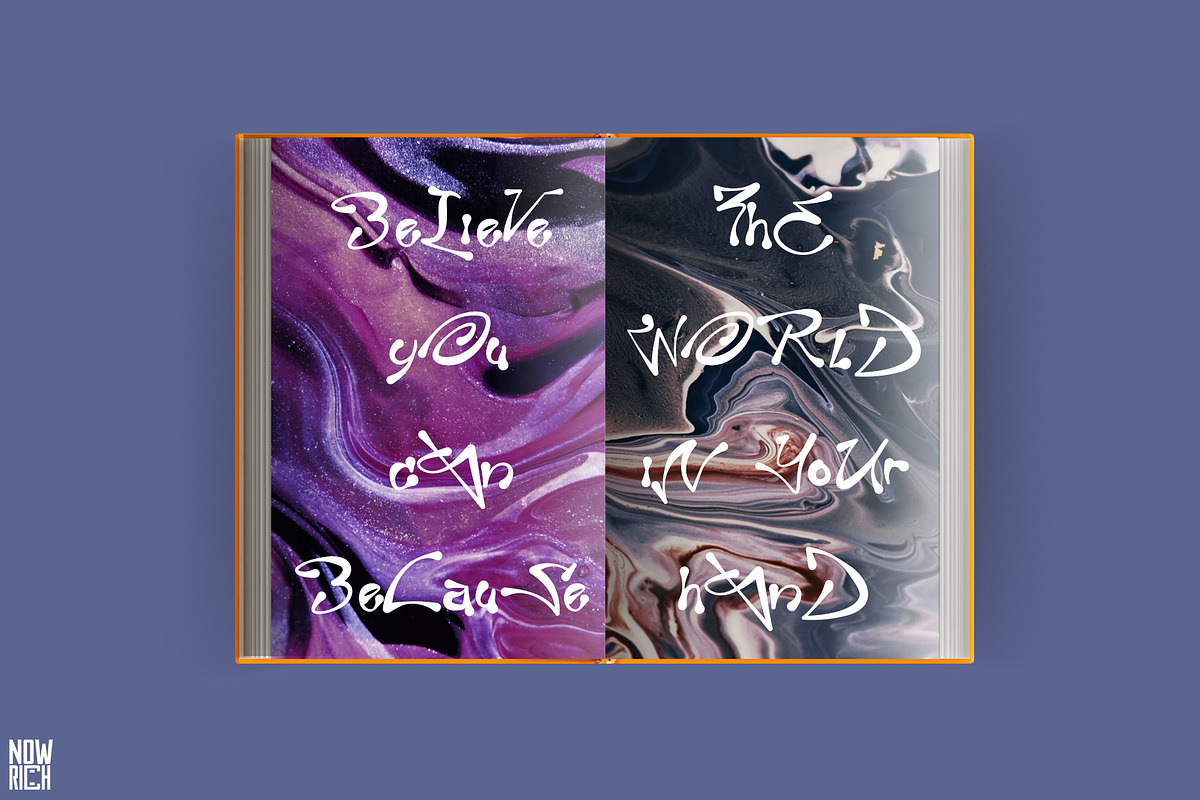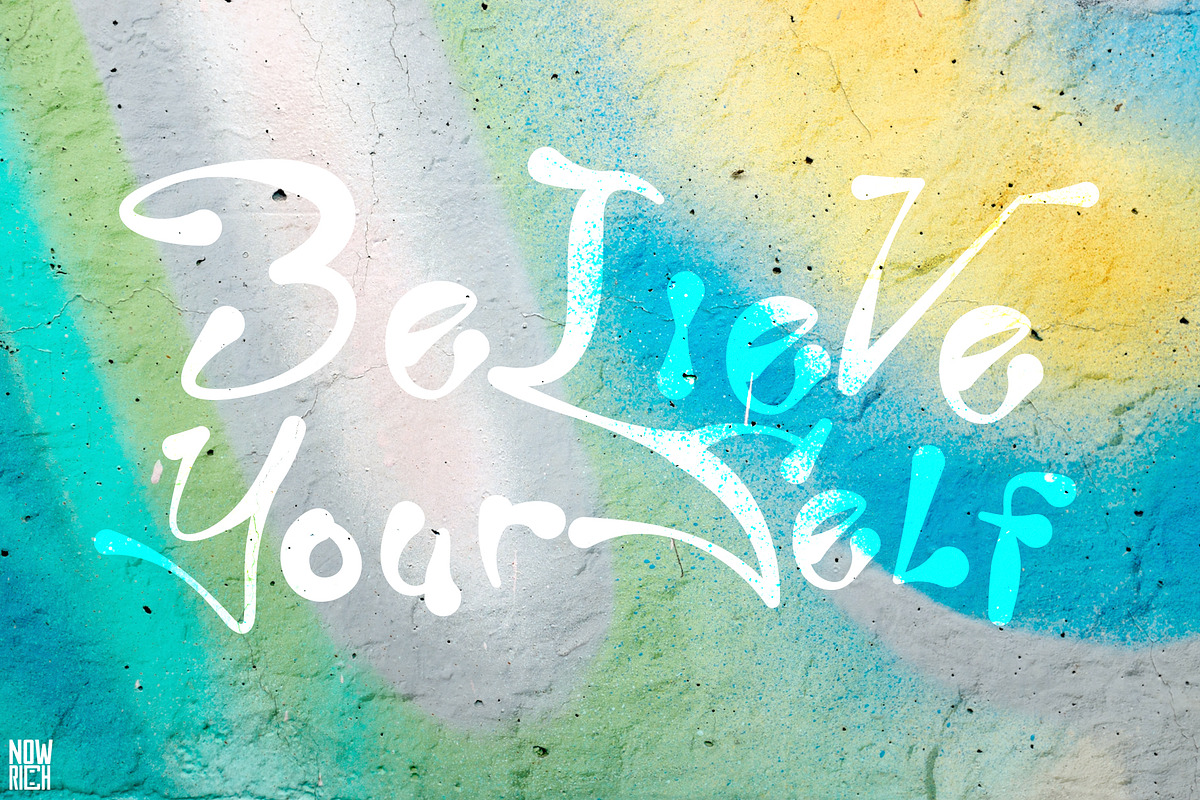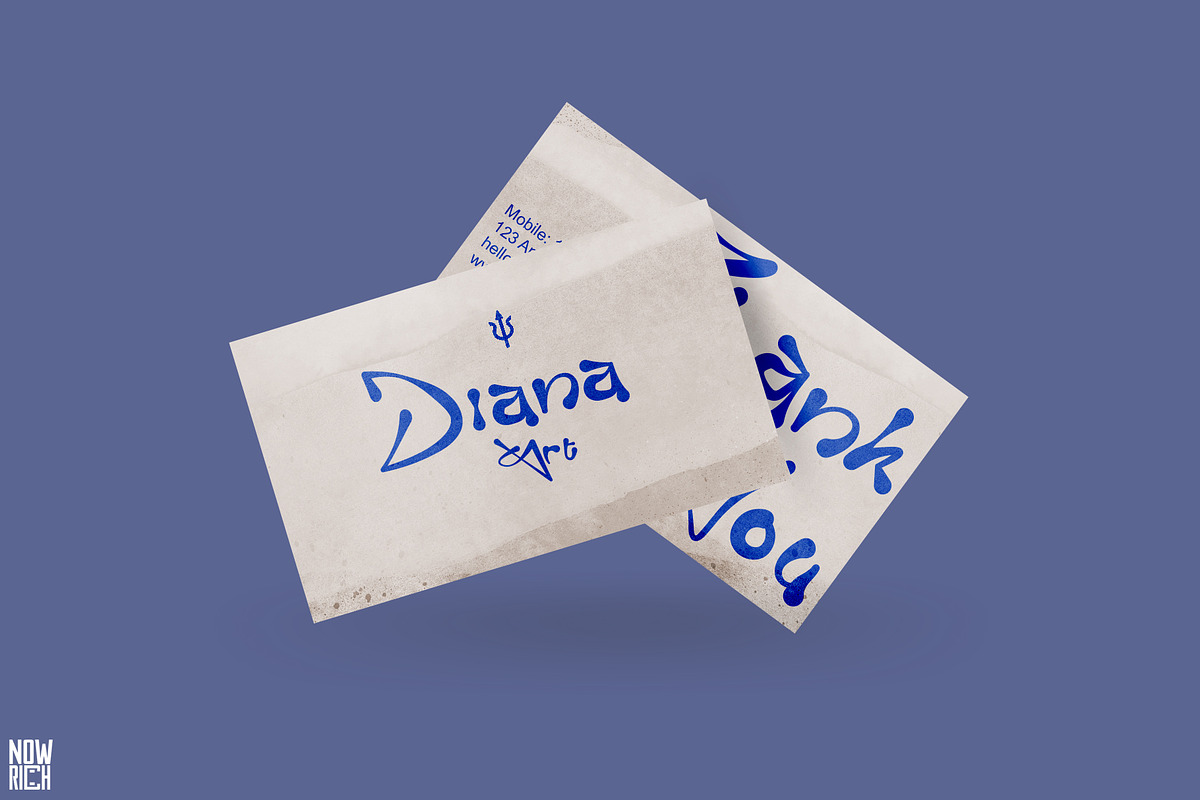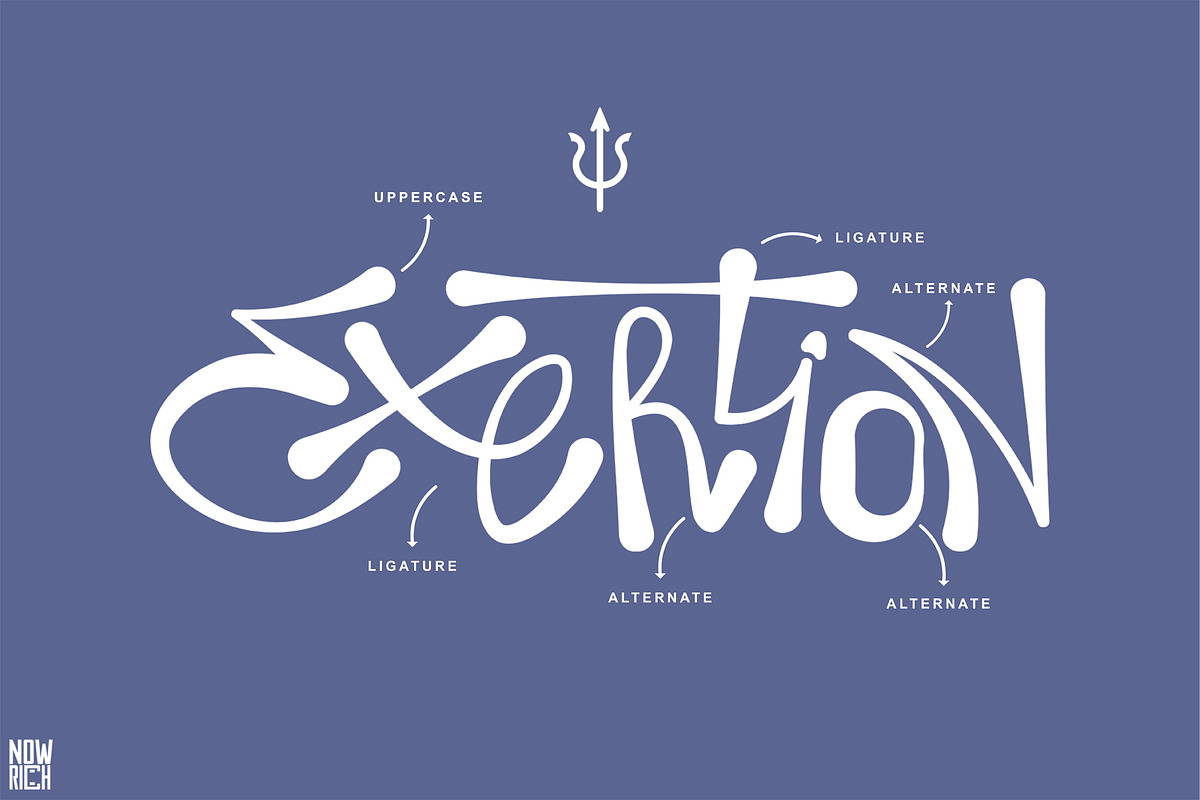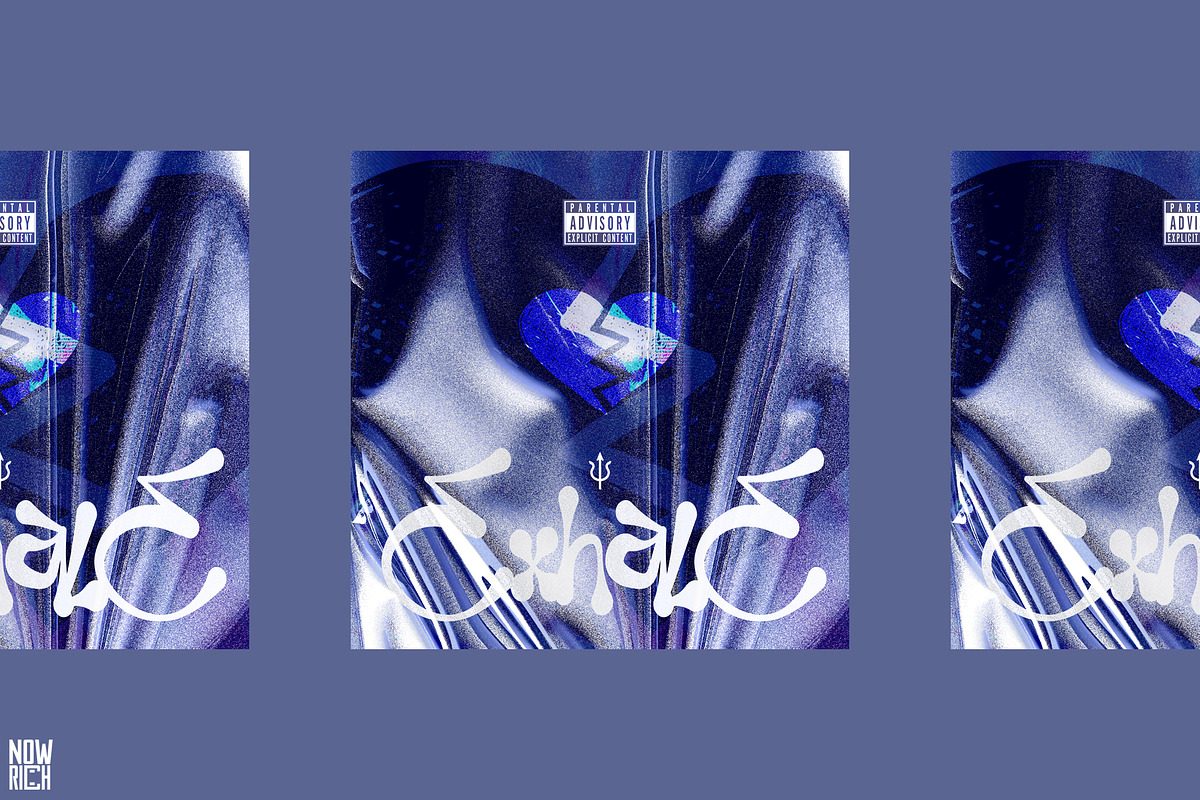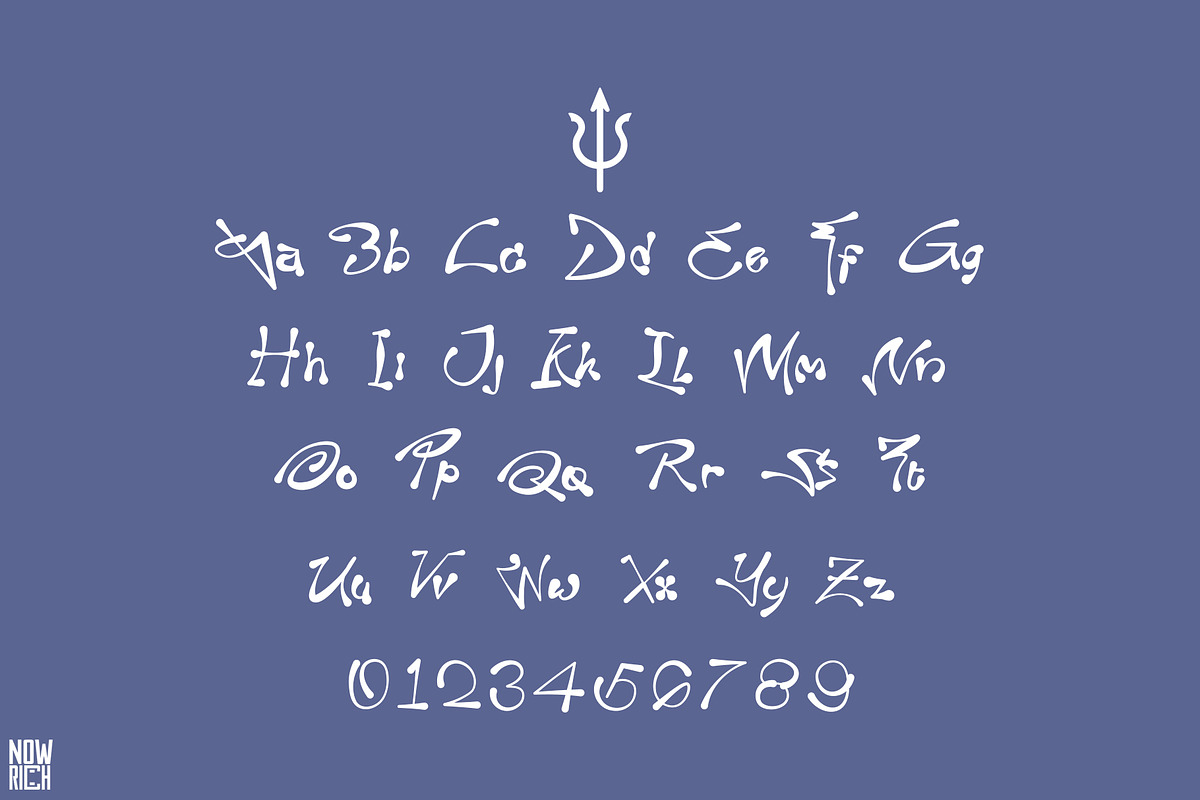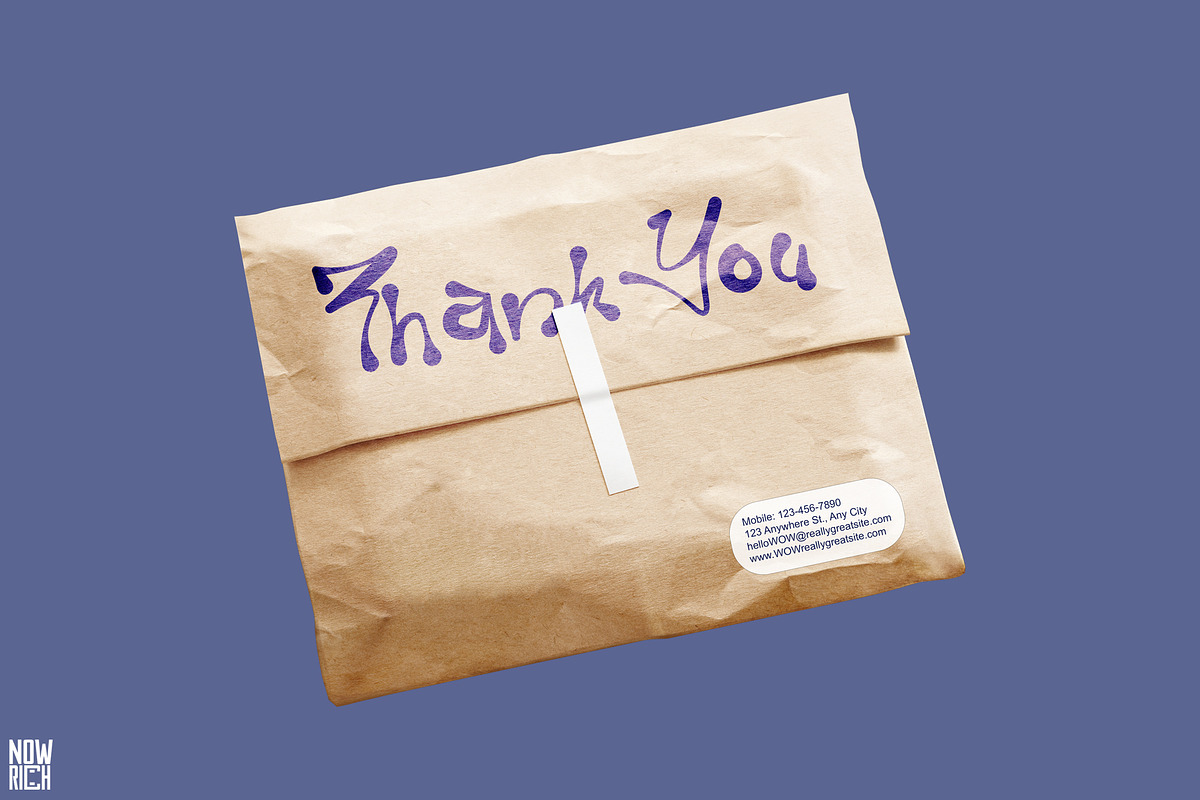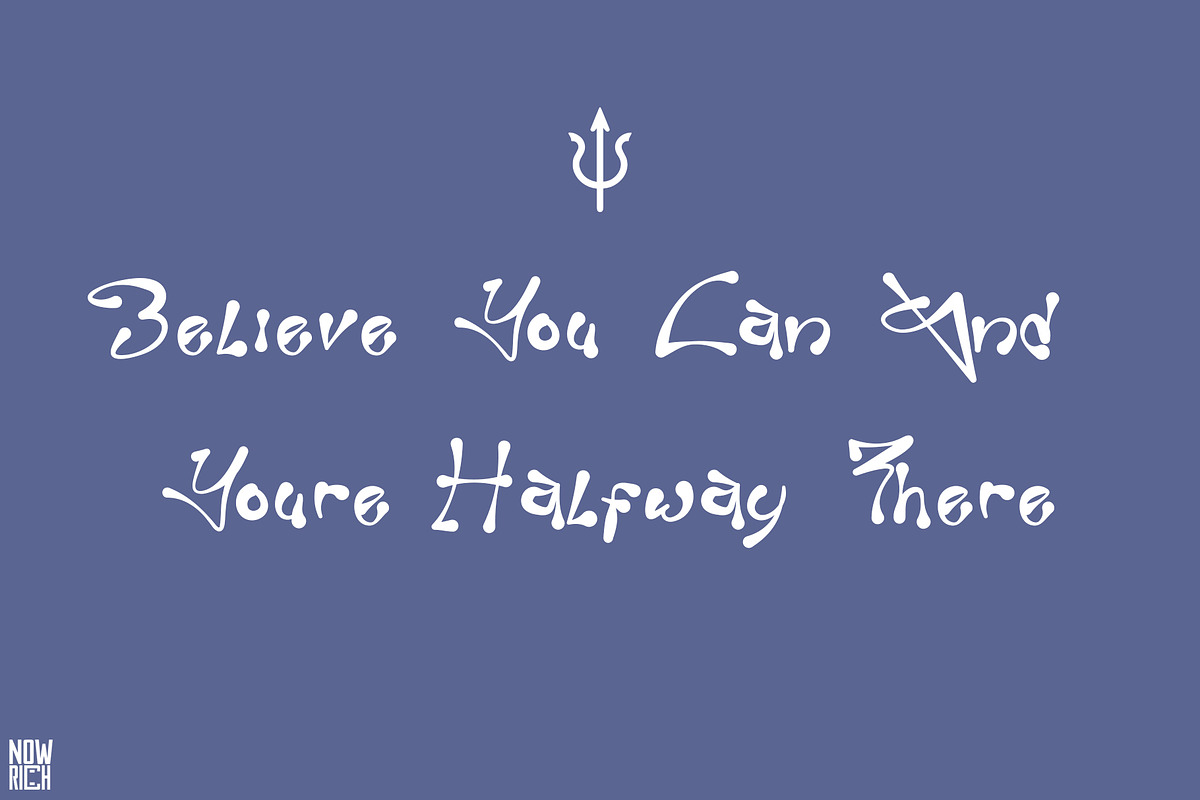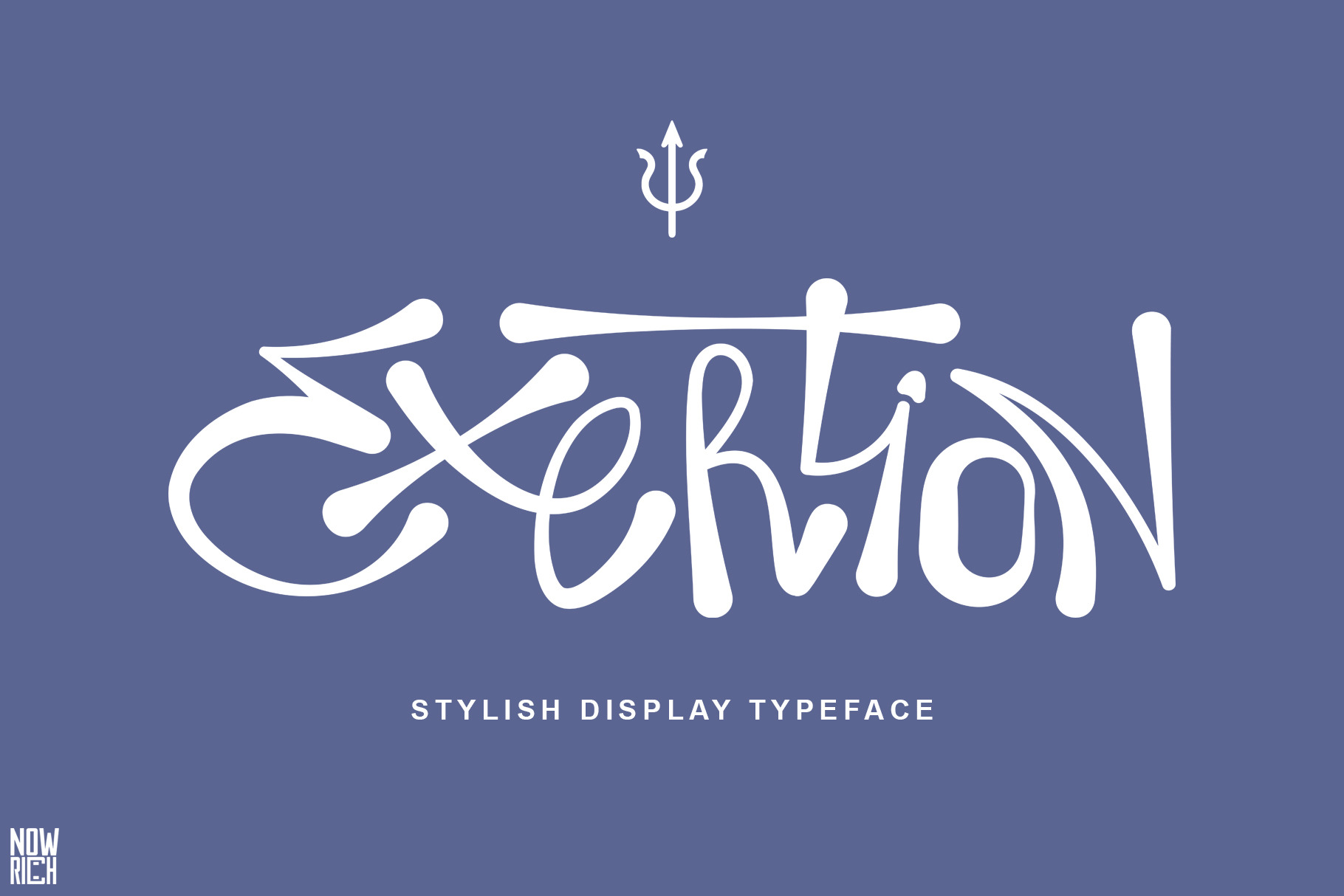
Exertion Display Typeface Grafiti
Elevate your designs with Exertion, a dynamic font that seamlessly merges tradition with innovation. With its captivating blend of references and personalized design flair, this font is tailor-made for invitation cards, posters, branding, logos, illustrations, and more. Stand out from the crowd with its captivating uppercase and lowercase characters, perfect for those seeking to infuse their graphic projects with creativity and distinction.
Featured :
- Basic Latin character set
- Advanced Latin character set
- Basic Cyrillic character set
- Advanced Cyrillic character set
- Open & Close Punctuation
- Dashes & Quotes
- Currency
- Math Symbols
- Designer Favorites
- Cyrillic